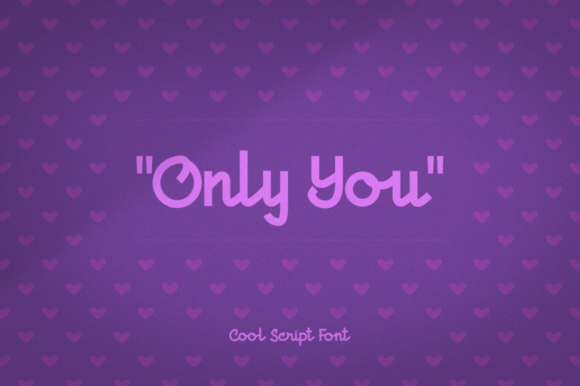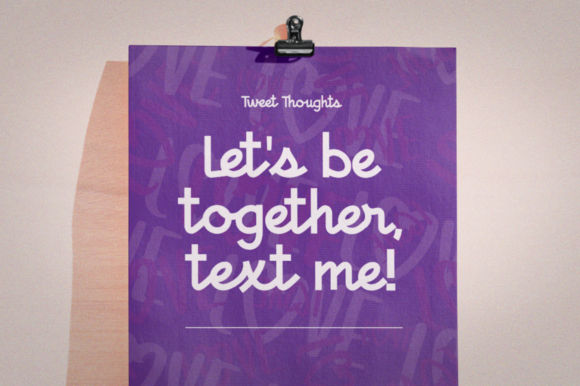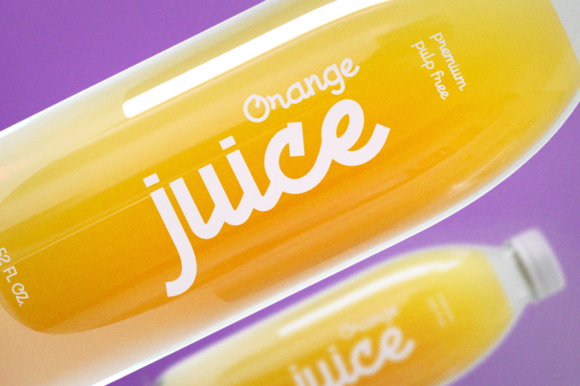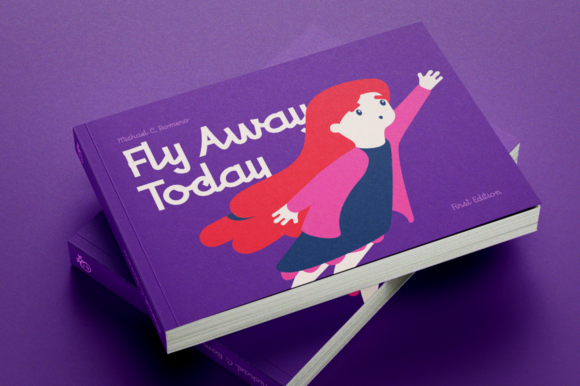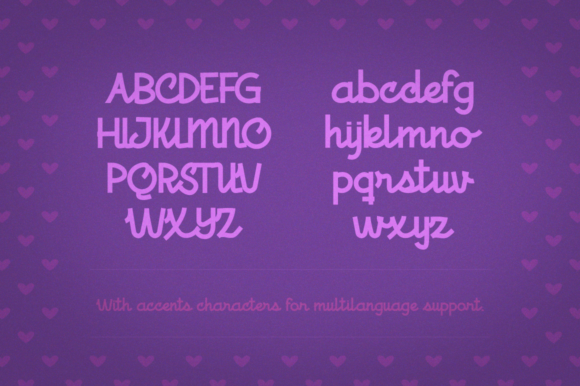
Only You Font
About Only You Font
Only You is a delightful and playful handwritten font that exudes a fun and cool vibe. With its unique and quirky design, it adds a touch of whimsy to any creative project, making it a perfect fit for various purposes, including crafting, digital designing, presentations, and greeting card making.
The font’s charming and lighthearted style makes it versatile and suitable for a wide range of projects, from crafting personalized gifts to creating eye-catching digital designs. Its playful and cool appearance brings a sense of joy and creativity to your work, making it ideal for projects that require a fun and vibrant touch.
Only You’s PUA encoding is an added advantage, allowing you to access all of the glyphs and swashes with ease. This feature provides you with a wealth of creative possibilities, enabling you to add unique and decorative elements that enhance the overall look of your designs.
Whether you’re designing greeting cards for special occasions, creating playful presentations, or crafting personalized gifts, Only You brings a sense of fun and coolness to your work. Its smooth and fluid lines create a relaxed and carefree atmosphere, making it perfect for projects that require a touch of playfulness.
In summary, Only You is a fun and cool handwritten font that adds a sense of joy and creativity to your projects. With its playful and quirky design, along with its PUA encoding, it offers you the flexibility and ease to create eye-catching and personalized creations. Embrace the charm of Only You and let your designs radiate with fun and coolness.